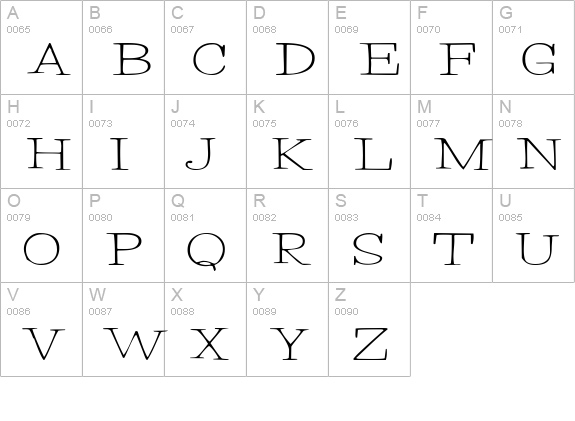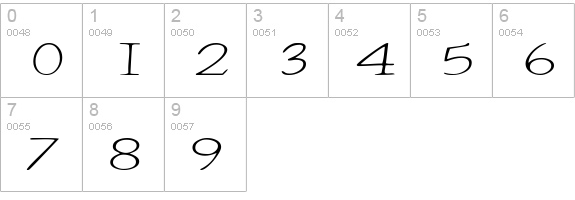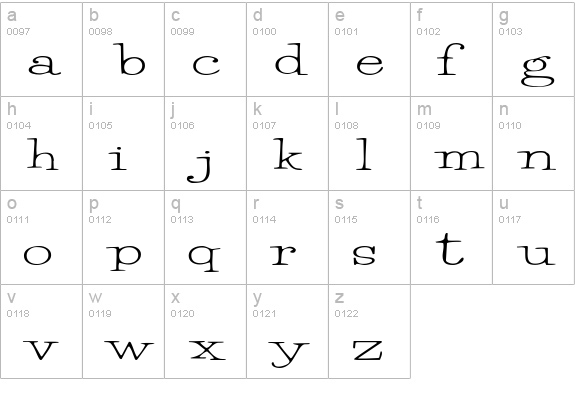
Merrill Font Details
Merrill font is a versatile and modern typeface that exudes elegance and sophistication. With its sleek lines and stylish curves, Merrill is perfect for a wide range of design projects, from branding to editorial design. This font strikes the perfect balance between professionalism and creativity, making it suitable for both corporate and creative applications. The best part? Merrill font is completely free to download at FontsMarket.com. So whether you're a seasoned designer looking to add a fresh font to your collection or a newcomer searching for the perfect typeface for your project, Merrill is a fantastic choice. Download Merrill font today and elevate your design work to new heights.